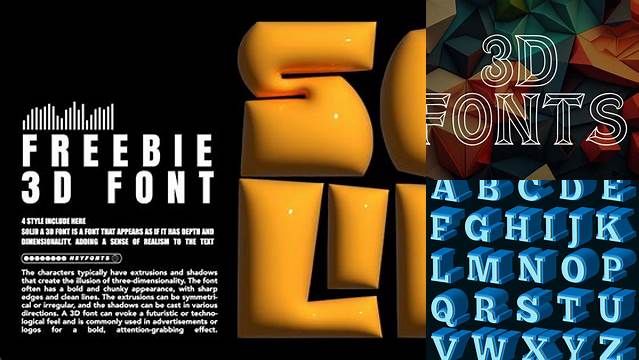
3D Fonts: Free Downloads For Your Creative Projects
Hey guys! Are you looking to add some serious depth and dimension to your designs? Look no further! This article is your ultimate guide to finding the best 3D fonts for free. Whether you're working on a logo, a poster, or a website, a killer 3D font can really make your project pop. We're going to dive into everything you need to know about 3D fonts, where to find them, and how to use them. Let's get started!
1. What are 3D Fonts?
So, what exactly are 3D fonts, anyway? Simply put, they're fonts that have a three-dimensional appearance. Unlike regular fonts that are flat, 3D fonts create the illusion of depth, making them stand out and grab attention. This is achieved through various design techniques like extruding the font, adding shadows, highlights, and perspective. 3D fonts are perfect for headlines, logos, and any design element where you want to make a bold statement. They can add a touch of realism, futurism, or even a retro vibe to your projects. Using 3D fonts effectively can truly elevate your designs and make them more visually appealing.
Think of it this way: a standard font is like a drawing on a piece of paper, while a 3D font is like a sculpture. It has form, texture, and a presence that commands attention. This makes them incredibly versatile for a wide range of applications, from print to digital media. The key is to choose the right 3D font for your project and use it in a way that complements the overall design. With the right 3D font, you can turn an ordinary design into something extraordinary.
When you're browsing for free 3D fonts, you'll notice a huge variety in styles. Some are bold and blocky, perfect for a modern, industrial look. Others are sleek and elegant, ideal for luxury brands or high-end designs. And then there are the fun, quirky 3D fonts that are great for kids' projects or anything that needs a playful touch. The possibilities are endless, which is why it's so important to understand what you're looking for before you start your search. Knowing your project's needs will help you narrow down your options and find the perfect 3D font to make your vision a reality. Remember, the goal is to make your text not just readable, but visually stunning.
2. Where to Find Free 3D Fonts
Okay, so you're sold on the idea of using 3D fonts. Now, the big question: where do you find them for free? The internet is a treasure trove of resources, but it can be overwhelming to sift through everything. Let's break down some of the best places to find free 3D fonts.
First up, there are dedicated font websites like DaFont, FontSpace, and Google Fonts. These sites have huge libraries of fonts, many of which are available for personal or commercial use (always double-check the license!). You can search specifically for 3D fonts or browse through categories like 'Display' or 'Headline' to find fonts with a three-dimensional feel. These sites often have user-friendly interfaces, making it easy to preview fonts and download them quickly. Plus, many of them have user ratings and reviews, so you can see what other designers think of a particular font before you commit to using it.
Another great option is to check out design resource websites like Behance and Dribbble. These platforms are home to a thriving community of designers, many of whom offer free 3D font resources as a way to give back to the community. You might have to dig a little deeper to find what you're looking for, but the gems you uncover can be well worth the effort. These platforms often feature more unique and creative fonts that you won't find on the mainstream font websites. It's a fantastic way to discover hidden talent and add a distinctive touch to your projects.
Finally, don't forget about creative marketplaces like Creative Market and Envato Elements. While these sites primarily offer premium fonts, they often have free font packs or freebies available on a rotating basis. It's worth checking in regularly to see if you can snag a high-quality 3D font without spending a dime. Plus, even if you do end up paying for a font, these marketplaces often offer excellent deals and bundles that can make the investment worthwhile. Remember to always read the license agreements carefully to ensure you're using the fonts in accordance with the terms and conditions. With a little bit of searching, you'll be amazed at the variety of 3D fonts you can find for free.
3. Top Websites for Free 3D Fonts
Let's zoom in on some specific websites that are goldmines for free 3D fonts. We've already mentioned a few, but let's dive deeper into what makes them great and how to get the most out of them. These sites are your best bet for finding a wide range of options without breaking the bank.
DaFont is a classic choice for a reason. It has a massive collection of fonts, categorized by style, and many of them are available for free personal use. The interface is simple and easy to navigate, and you can quickly preview fonts before downloading them. Just be sure to check the license information for each font, as some are only free for personal projects. DaFont is a great starting point for anyone looking for a free 3D font, offering a diverse range of styles from bold and futuristic to vintage and playful. It's like a giant candy store for fonts, but instead of calories, you're getting design inspiration!
FontSpace is another fantastic option, with a clean and user-friendly website. They offer thousands of free fonts, including a good selection of 3D fonts. FontSpace also has a helpful tagging system, making it easy to filter fonts by style, weight, and other characteristics. Plus, they have a community aspect, where designers can share their work and get feedback. This makes FontSpace not just a font library, but also a place to connect with other creatives. Finding the perfect 3D font here is a breeze, thanks to their intuitive search and filtering tools. It's a site that respects designers and provides a platform for sharing and discovery.
Google Fonts is a powerhouse for web fonts, and they have a growing collection of fonts that can work well as 3D fonts, especially when combined with CSS effects. The best part about Google Fonts is that they are all open source and free to use for any project, commercial or personal. The fonts are also optimized for web use, meaning they'll load quickly and look great on any device. While you might not find explicitly named 3D fonts on Google Fonts, you can certainly find fonts with strong, bold shapes that lend themselves well to 3D effects. It's a go-to resource for any web designer looking for reliable and versatile fonts.
4. Types of 3D Fonts Available
The world of 3D fonts is incredibly diverse, and you'll find a wide range of styles to suit any project. Understanding the different types of 3D fonts available can help you narrow down your search and find the perfect fit for your design. Let's explore some of the most popular categories.
First, there are Extruded Fonts. These are perhaps the most classic type of 3D font, where the letters appear to be extruded or pulled out from the page. They have a solid, three-dimensional shape and often feature strong shadows and highlights to enhance the depth effect. Extruded fonts are great for headlines, logos, and any design where you want to make a bold statement. They can convey a sense of strength, stability, and modernity. When you're looking for a 3D font that really pops, extruded fonts are a solid choice.
Next up, we have Isometric Fonts. These fonts are designed with an isometric perspective, which creates a unique, technical look. Isometric fonts are often used in architectural designs, technical diagrams, and futuristic projects. They have a clean, geometric style that is both visually appealing and highly readable. If you're aiming for a sleek, modern design with a touch of technical flair, an isometric 3D font could be the perfect solution. They're like the architects of the font world, bringing precision and structure to your typography.
Then there are Shadowed Fonts, which create the illusion of depth by adding a realistic shadow behind the letters. The shadow can be cast in various directions, creating different effects and moods. Shadowed fonts are versatile and can be used in a wide range of designs, from vintage posters to modern websites. They add a touch of drama and sophistication to your text. A well-placed shadow can transform a simple font into a stunning 3D font. They're the font equivalent of a movie star, using light and shadow to create a captivating performance.
5. Using 3D Fonts in Graphic Design
Now that you've got a fantastic collection of 3D fonts, let's talk about how to use them effectively in your graphic design projects. A great font is only half the battle; the real magic happens when you know how to integrate it seamlessly into your designs. Let's dive into some tips and best practices for using 3D fonts to create stunning visuals.
First and foremost, consider the context. Where will your design be used? A 3D font that looks amazing on a poster might not work well on a small website banner. Think about the overall style and message of your design. A bold, futuristic 3D font might be perfect for a tech company's logo, but it would feel out of place on a wedding invitation. Choose a font that complements the rest of your design elements, including colors, images, and layout. The key is to create a cohesive and visually appealing whole.
Next, think about readability. While 3D fonts are visually striking, they can sometimes be challenging to read, especially in smaller sizes. Avoid using overly intricate or decorative 3D fonts for large blocks of text. Instead, save them for headlines, titles, and other prominent elements where readability is less critical. When using a 3D font for body text, make sure the letters are clear and well-defined. Legibility should always be a top priority, even with a fancy 3D font. After all, a beautiful font is useless if nobody can read it.
Finally, don't overdo it. A little bit of 3D font can go a long way. Using too many 3D fonts in one design can create a cluttered and overwhelming effect. Stick to one or two 3D fonts and use them sparingly. Balance your 3D fonts with simpler, more traditional fonts for body text and supporting elements. The goal is to use the 3D font to add emphasis and visual interest, not to overwhelm the viewer. Think of it like adding spice to a dish: a little bit enhances the flavor, but too much can ruin the whole meal.
6. 3D Fonts for Logos
A logo is the face of a brand, and a well-chosen font can make a huge difference in how that brand is perceived. 3D fonts can be an excellent choice for logos, adding a sense of depth, dimension, and visual impact. However, it's crucial to use them strategically and with careful consideration. Let's explore how to effectively use 3D fonts in logo design.
First, consider your brand's personality. What kind of message do you want to convey? A bold, blocky 3D font might be perfect for a tech company or a fitness brand, conveying strength and innovation. A more elegant, shadowed 3D font could be a good fit for a luxury brand or a design firm, suggesting sophistication and creativity. Choose a font that aligns with your brand's values and target audience. Your logo is often the first thing people see, so it needs to make the right impression.
Next, think about scalability. A logo needs to look good in a variety of sizes, from a tiny favicon on a website to a large banner at a trade show. Avoid using overly intricate 3D fonts with lots of small details, as these can become illegible at smaller sizes. Choose a font that maintains its clarity and impact, even when scaled down. A good 3D font for a logo should be versatile and adaptable. It's like a chameleon, able to fit into different environments and still look fantastic.
Finally, remember the importance of simplicity. While 3D fonts can add visual interest, a logo should still be clean and memorable. Avoid using too many effects or embellishments that can clutter the design. A simple, well-crafted 3D font can be much more effective than a complex one. Think of iconic logos like Coca-Cola or Nike – they are simple, recognizable, and timeless. Your logo should be the same: easy to understand, easy to remember, and easy to love.
7. 3D Fonts for Websites
Websites are visual mediums, and typography plays a crucial role in creating an engaging user experience. 3D fonts can add a unique and eye-catching element to your website design, but they need to be used thoughtfully to avoid performance issues and ensure readability. Let's explore how to effectively use 3D fonts on your website.
First, consider the purpose of the font. 3D fonts are best used for headlines, titles, and other prominent elements where you want to grab the user's attention. Avoid using them for large blocks of body text, as they can be difficult to read and can slow down page loading times. A good rule of thumb is to use 3D fonts sparingly and strategically. They're like the spotlights on a stage, highlighting key moments and drawing the audience's eye.
Next, think about website performance. 3D fonts can be larger in file size than regular fonts, which can impact your website's loading speed. Slow-loading websites can frustrate users and negatively impact your search engine rankings. Optimize your 3D fonts by using web-friendly formats like WOFF and WOFF2, and consider using font subsets to reduce file size. Performance is king on the web, so make sure your 3D font choices don't compromise your site's speed and usability.
Finally, test your 3D fonts across different browsers and devices. Not all browsers render fonts the same way, and a 3D font that looks great on your computer might not look as good on a mobile device. Always test your website on different platforms to ensure your typography is consistent and legible. Cross-browser compatibility is essential for a professional-looking website. It's like making sure your message is heard loud and clear, no matter who's listening or what device they're using.
8. 3D Fonts for Posters
Posters are all about making a visual statement, and 3D fonts can be a fantastic way to grab attention and convey a message with impact. Whether you're designing a movie poster, an event flyer, or a promotional advertisement, the right 3D font can make your poster stand out from the crowd. Let's explore how to use 3D fonts effectively in poster design.
First, consider the theme of your poster. What kind of mood or message do you want to convey? A bold, futuristic 3D font might be perfect for a sci-fi movie poster, while a vintage, shadowed font could work well for a retro event flyer. Choose a font that complements the overall style and tone of your poster. The font should be a visual echo of the poster's core message, reinforcing its impact on the viewer.
Next, think about legibility. While 3D fonts can add visual flair, it's crucial that your poster's text is still easy to read. Avoid using overly decorative or complex 3D fonts for important information like dates, times, and locations. Stick to simpler, more legible 3D fonts for key details. A poster is a fleeting glimpse, so your message needs to be instantly clear. Legibility is the bridge that carries your message to the audience.
Finally, experiment with different effects and techniques. 3D fonts lend themselves well to a variety of treatments, from adding drop shadows and gradients to using textures and patterns. Don't be afraid to play around with different effects to create a unique and eye-catching design. A poster is a canvas for creativity, and 3D fonts are just one of the many tools you can use to bring your vision to life. Think of it like adding spices to a dish: a little experimentation can lead to a culinary masterpiece.
9. Tips for Choosing the Right 3D Font
Choosing the right 3D font can feel like a daunting task, given the sheer number of options available. But don't worry, guys! With a few helpful tips and guidelines, you can narrow down your choices and find the perfect font for your project. Let's dive into some key considerations for selecting the right 3D font.
First, define your project's goals. What message are you trying to convey? What is the overall tone and style of your design? Understanding your project's objectives will help you choose a 3D font that aligns with your vision. A clear understanding of your goals is like having a compass, guiding you through the sea of font options.
Next, consider the readability of the font. As we've discussed, 3D fonts can sometimes be challenging to read, especially in smaller sizes. Choose a font that is clear and legible, even when scaled down. Avoid overly decorative or complex fonts for large blocks of text. Readability is the cornerstone of effective typography. A beautiful font is useless if it's not easily read.
Finally, think about the font's versatility. Can it be used in a variety of contexts and applications? A versatile 3D font will be a valuable asset to your design toolkit. Look for fonts that come in multiple weights and styles, and that work well with other fonts. Versatility is like having a Swiss Army knife: it's ready for anything. A versatile font can adapt to different situations and still deliver excellent results.
10. Combining 3D Fonts with Other Fonts
3D fonts are attention-grabbers, but they shouldn't be the only font in your design. Combining them effectively with other fonts can create a balanced and visually appealing composition. Let's explore some tips for pairing 3D fonts with other typefaces.
First, use 3D fonts sparingly. As we've mentioned before, a little bit of 3D font can go a long way. Use them for headlines, titles, and other prominent elements, and pair them with simpler, more traditional fonts for body text and supporting information. A 3D font is like a spotlight: it shines brightest when used strategically. Overusing it can dim its impact and create visual clutter.
Next, choose complementary fonts. Look for fonts that have a similar style or personality to your 3D font. If you're using a bold, futuristic 3D font, pair it with a clean, sans-serif font for body text. If you're using a vintage, shadowed font, try pairing it with a classic serif font. The goal is to create a harmonious contrast that enhances the overall design. Complementary fonts are like a well-matched pair of dance partners, each enhancing the other's performance.
Finally, pay attention to hierarchy. Use font size, weight, and color to create a clear visual hierarchy in your design. The 3D font should be the most prominent element, drawing the viewer's eye and conveying the main message. Supporting fonts should be less visually dominant, providing context and information. Hierarchy is the backbone of good design, guiding the viewer's eye and ensuring they understand your message.
11. Software for Working with 3D Fonts
To truly unleash the potential of 3D fonts, you'll need the right software tools. While you can use 3D fonts in basic design programs, more advanced software will give you greater control over their appearance and effects. Let's explore some of the best software options for working with 3D fonts.
Adobe Photoshop is a powerhouse for graphic design, and it offers a wide range of tools for working with 3D fonts. You can create 3D text layers, add textures and materials, adjust lighting and shadows, and apply a variety of effects. Photoshop is a great choice for creating realistic and visually stunning 3D typography. It's like a digital workshop, giving you all the tools you need to sculpt your 3D font into a masterpiece.
Adobe Illustrator is another popular choice for working with 3D fonts, particularly for logo design and vector graphics. Illustrator's 3D effects allow you to extrude, bevel, and rotate text, creating a variety of three-dimensional appearances. Illustrator is ideal for creating clean, scalable 3D typography. It's like a precision instrument, allowing you to create crisp, sharp 3D fonts that look great at any size.
Blender is a free and open-source 3D creation suite that offers a wealth of features for working with 3D fonts. While it has a steeper learning curve than Photoshop or Illustrator, Blender gives you unparalleled control over every aspect of your 3D typography. You can model, texture, and render 3D fonts with incredible detail and realism. Blender is the ultimate sandbox for 3D design, giving you the freedom to create anything you can imagine.
12. Creating Your Own 3D Fonts
Feeling adventurous? If you're up for a challenge, you can even try creating your own 3D fonts. This is a more advanced process, but it gives you complete creative control and allows you to develop truly unique typography. Let's explore the basics of creating your own 3D fonts.
The first step is to choose your software. Programs like Blender, Cinema 4D, and FontLab Studio offer tools for creating 3D typography. Blender is a great free option, while Cinema 4D and FontLab Studio are industry-standard software with more advanced features. The right software is your foundation, providing the tools and capabilities you need to build your 3D font.
Next, you'll need to design the basic shape of your letters. This can be done by hand-drawing the letters or by using vector graphics software like Adobe Illustrator. Once you have your letterforms, you can import them into your 3D software and begin adding depth and dimension. The letterforms are the blueprint of your font, defining its personality and style.
Finally, you can add details like textures, materials, and lighting to bring your 3D font to life. Experiment with different effects to create the look and feel you want. Creating your own 3D font is like sculpting a work of art, allowing you to express your creativity and vision.
13. Licensing for Free 3D Fonts
When downloading free 3D fonts, it's crucial to pay attention to the licensing terms. Not all free fonts are created equal, and their usage restrictions can vary widely. Understanding font licensing will help you avoid legal issues and ensure you're using the fonts in accordance with the designer's wishes. Let's dive into the basics of font licensing.
The most common types of font licenses are personal use, commercial use, and open source. Personal use licenses allow you to use the font for non-commercial projects, such as school assignments or personal artwork. Commercial use licenses allow you to use the font in projects that generate revenue, such as logos, websites, and advertisements. Open source licenses, like the SIL Open Font License, grant you the most freedom, allowing you to use, modify, and distribute the font for any purpose. A font license is like the rules of the game, defining what you can and can't do with the font.